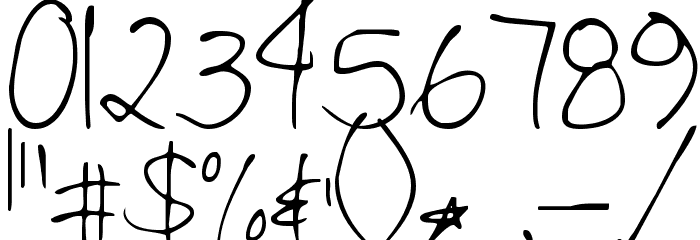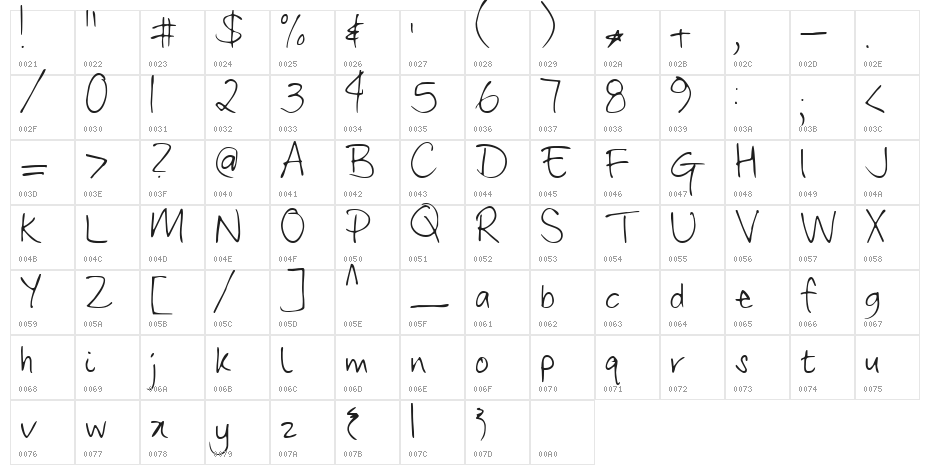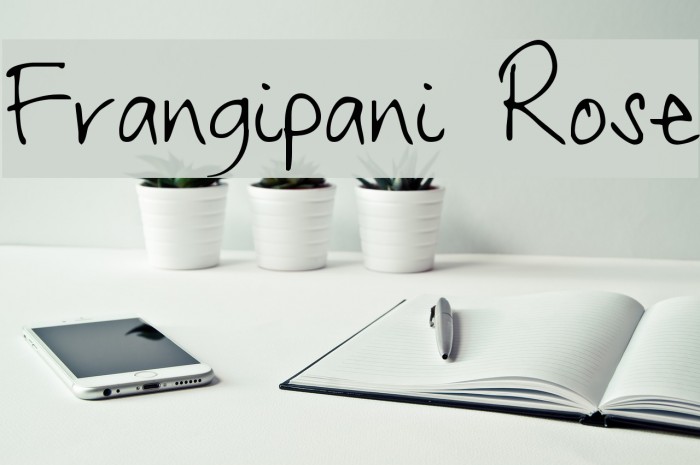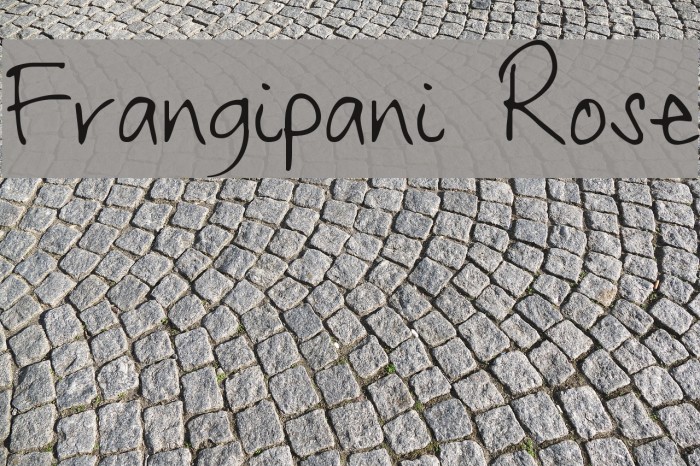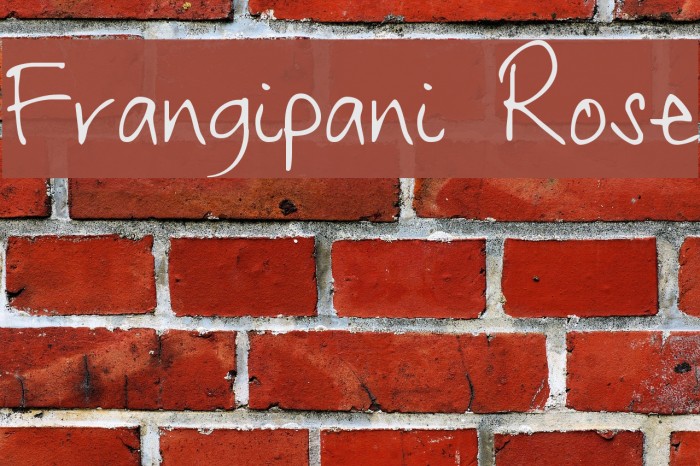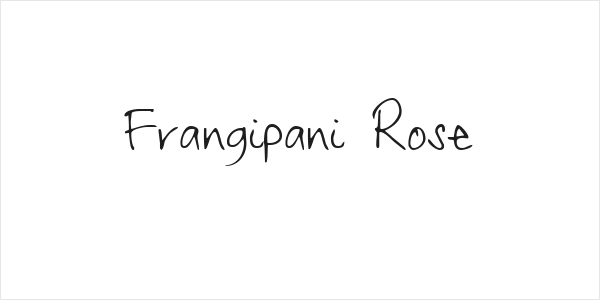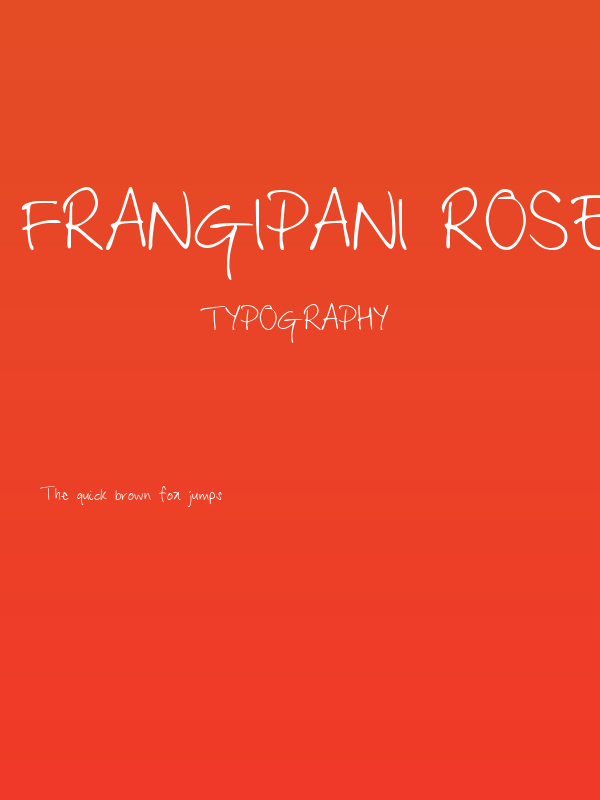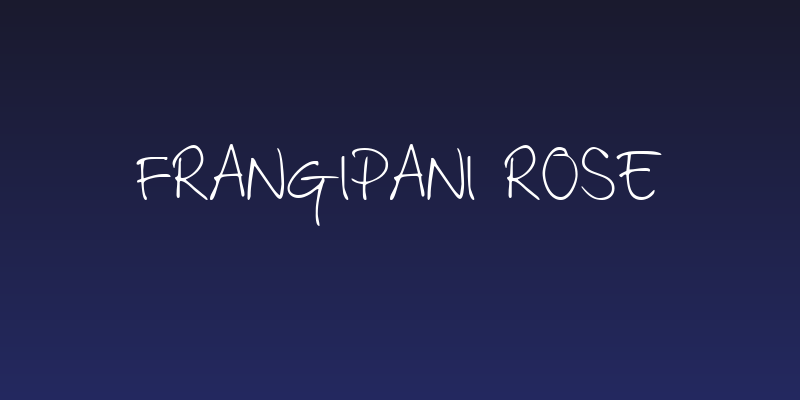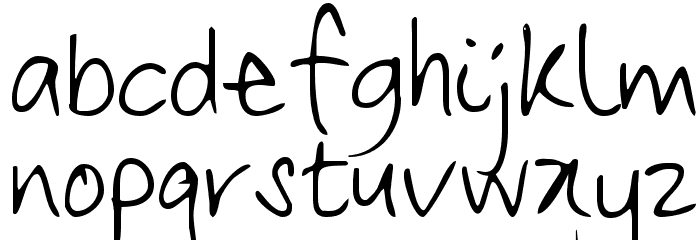
Frangipani Rose Font
Frangipani Rose Description
This font features a playful and casual handwritten style, characterized by its fluid and organic letterforms. The uppercase and lowercase letters exhibit a consistent flow, with slightly irregular strokes that add a personal touch. The numerals are rounded and maintain the same informal aesthetic, making them easy to read while retaining the font's unique charm. Special characters are creatively designed, fitting seamlessly with the overall style. The font's relaxed and approachable appearance makes it ideal for projects that require a friendly and informal tone.
| Proposed Projects | Greeting cards, personal blogs, children's books, casual branding, and social media graphics. |